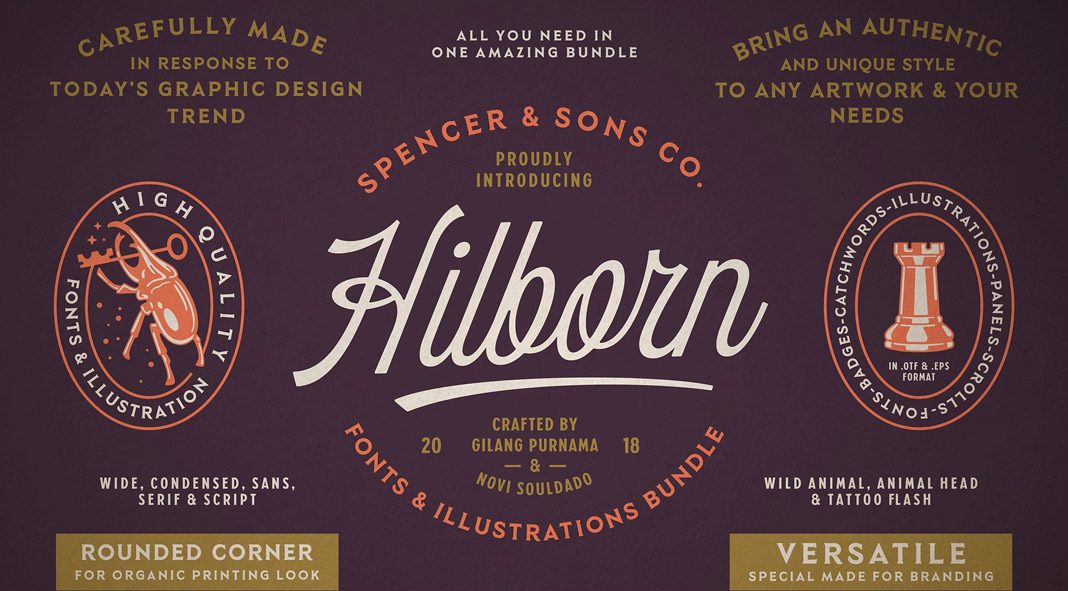
Vintage fonts at its best: The Spencer & Sons Hilborn font collection!
Made in response to some of today’s graphic design trends, the Spencer & Sons Hilborn fonts collection draws inspiration from vintage packaging, classic labels, and good old sign paintings. Whether logo designs, branding, signage, graphic and web design, this bundle will help you to add an extra dose of vintage to your work. The set also includes more than 100 hand-drawn illustrations that work quite well with the fonts. The fonts are easy to use. They can be combined in numerous ways to create authentic designs in no time. Both fonts and illustrations are included in the OpenType Format (OTF). To learn more about all features, just follow the link below.